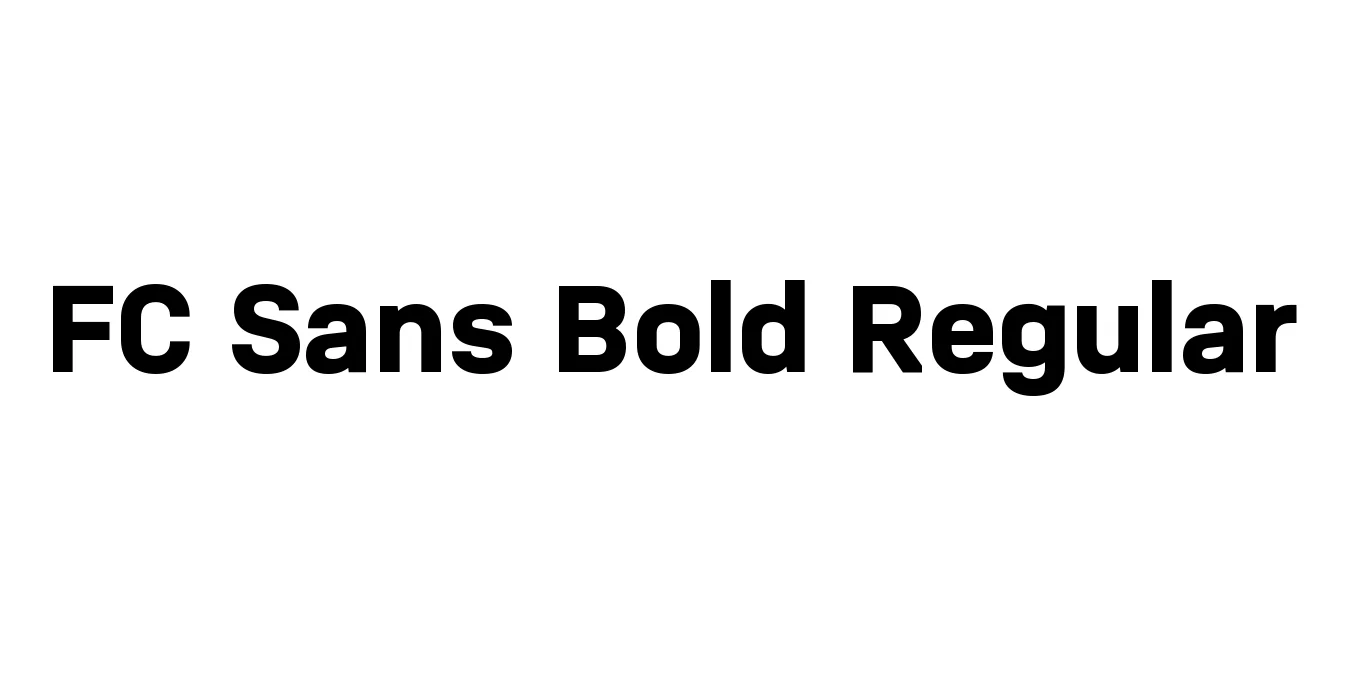
FC Sans Bold Regular
Designed by Fontcraft (Supanot Youcharoen)
FC Sans Bold Regular is a prominent member of the FC Sans family, a typeface meticulously crafted to bridge the gap between traditional Thai calligraphy and modern geometric sans-serif aesthetics. Developed by Fontcraft, this font offers exceptional clarity and a balanced weight distribution, making it an ideal choice for projects that require a sophisticated yet approachable tone. Its robust structure ensures legibility across various screen resolutions and print mediums.
The Bold Regular variant is specifically designed to provide strong visual emphasis without sacrificing the clean lines that define the collection. Since its release, it has become a staple for designers looking for a versatile typeface that supports multi-language projects, particularly those involving Thai and Latin scripts. Its timeless appeal and professional construction make it a reliable asset for corporate identities and high-impact editorial layouts.
FC Sans Bold Regular Best Uses
Creating impactful logos and cohesive corporate identity systems.
Bold titles for websites, posters, and high-impact magazine covers.
Eye-catching promotional graphics and social media advertising.
Clean and readable user interface elements and navigation bars.